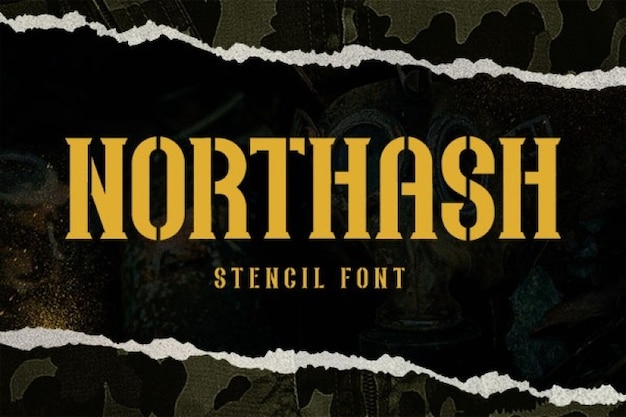
Northash Font
This Northash font is about to pull its gun out to shoot for the stars! This bold, charismatic typeface with its sliced Stencil letters and militaristic feel is perfect to strengthen the image of your project and make it more impressive. It can adapt to many display formats related to themes such as sports, military, urban and wildlife. Download it from Freepik now!